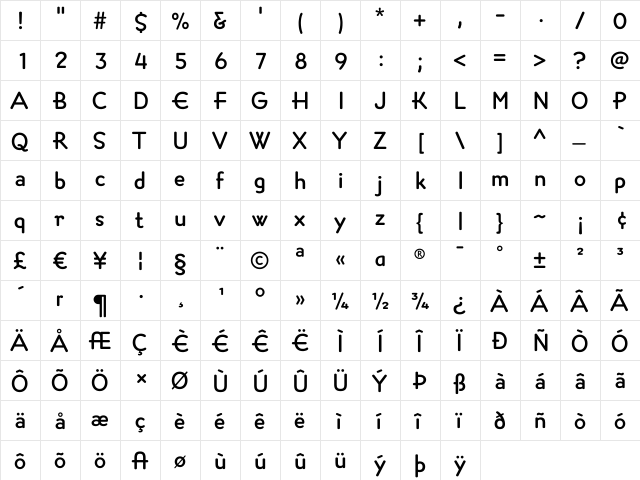
ConcertoRoundedSGA TT Medium
Design Context for ConcertoRoundedSGA TT Typeface
ConcertoRoundedSGA TT uses gentle rounded endings to create a warm, inviting typographic personality — less corporate than geometric sans, more refined than playful display fonts.
A natural fit for tech startups, health and wellness brands, children's products, and friendly consumer apps.
Font Pairing: Pairs well with a rounded or humanist sans for body copy, maintaining the friendly tone without relying on ConcertoRoundedSGA TT to carry extended reading.
Pro Tip: Pair ConcertoRoundedSGA TT with a geometric sans for a balanced system — the rounded softness works as a warm counterpoint to harder-edged companions.